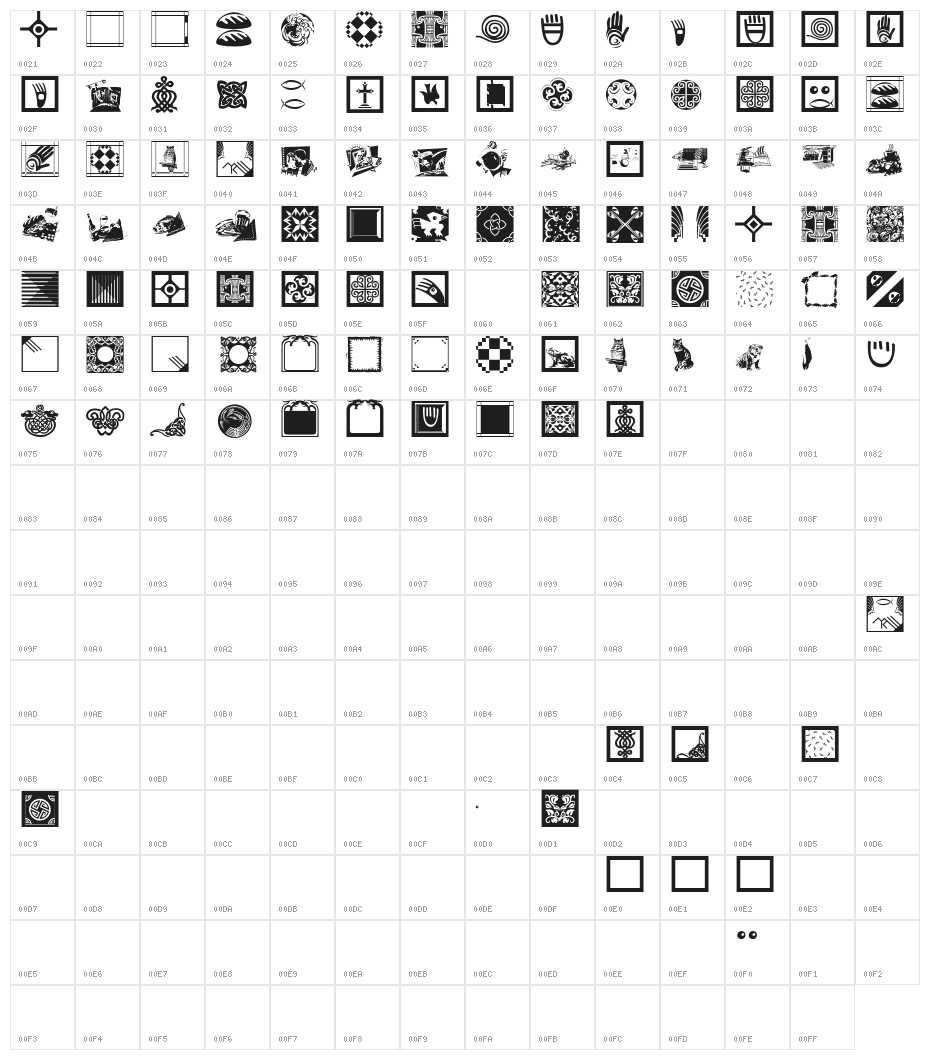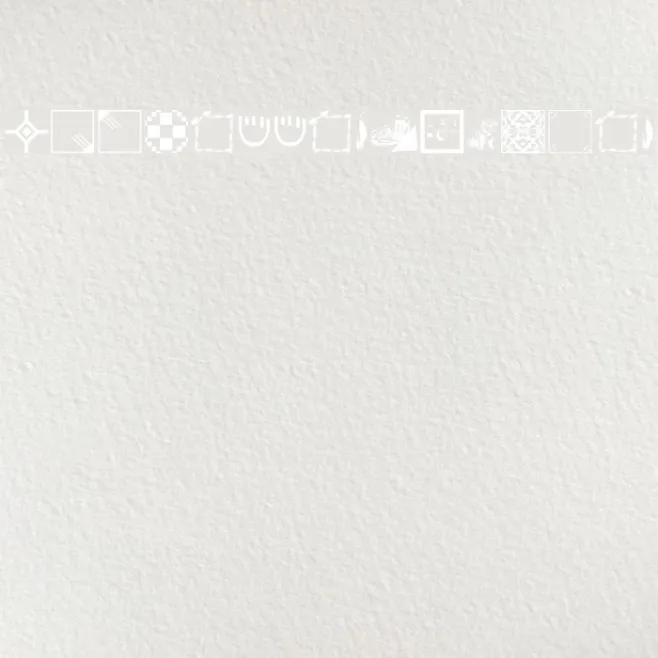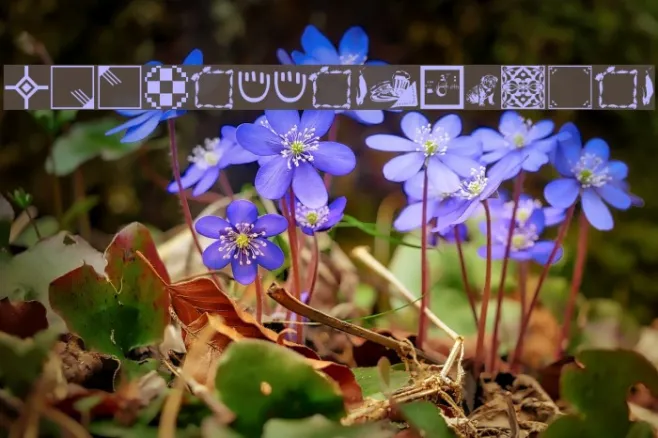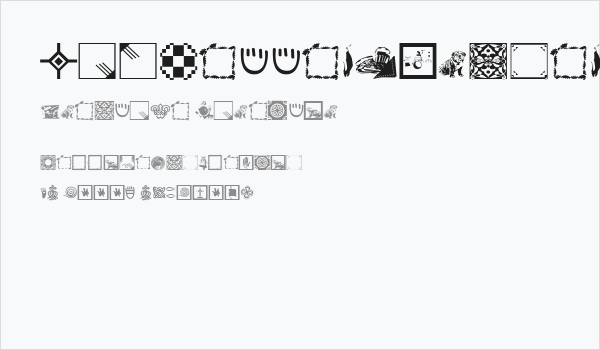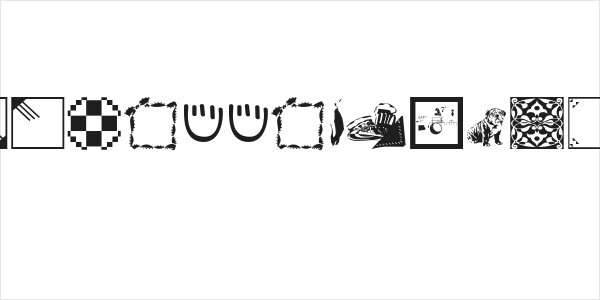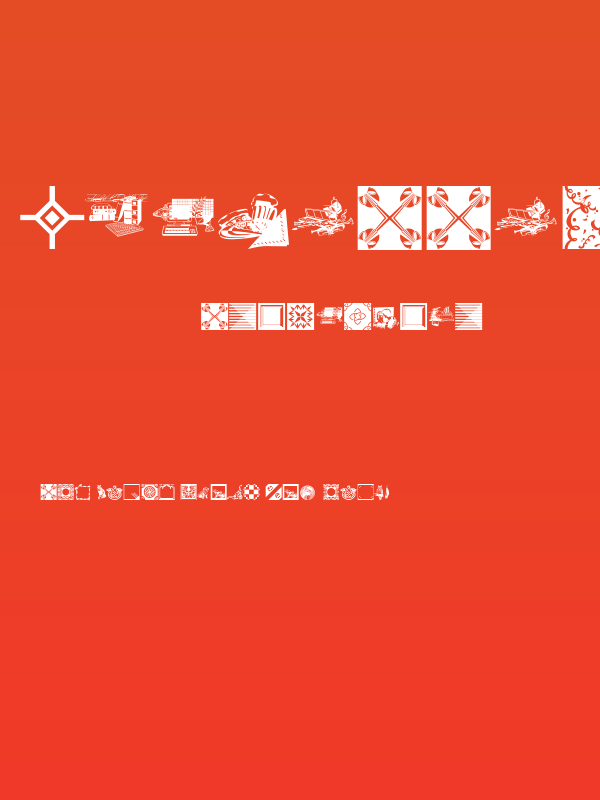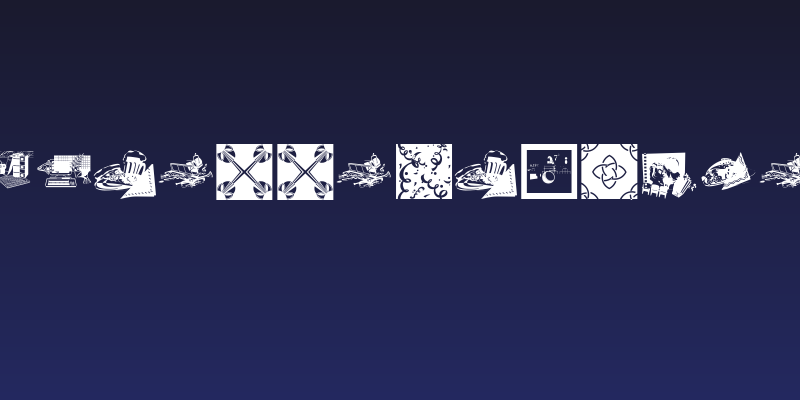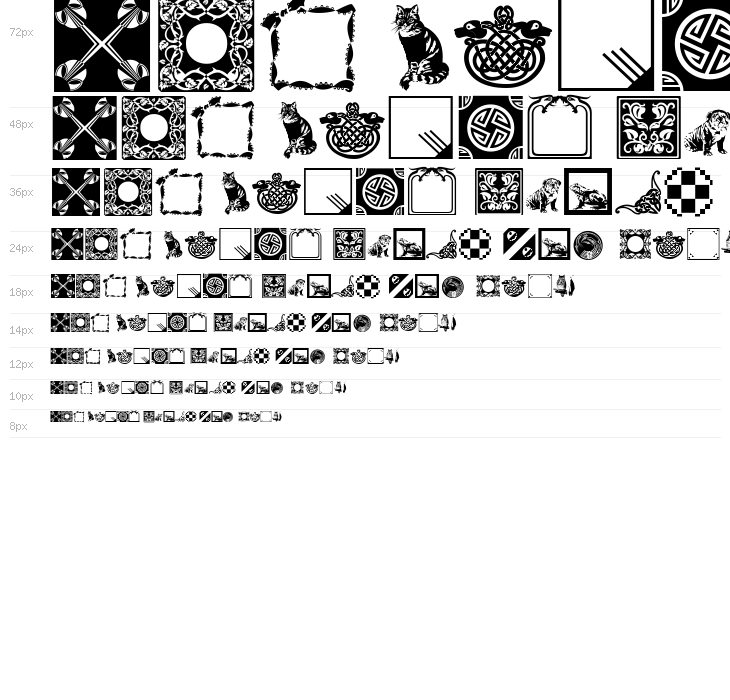
VignettesNFrames Font
VignettesNFrames Description
A decorative dingbat font featuring a wide variety of intricate vignettes, frames, borders, and ornamental motifs, including animals, geometric shapes, Celtic knots, and stylized icons. Each glyph is a unique illustration, often enclosed in a square or circular frame, with high contrast and detailed line work.
| Overall Style | Decorative, Vintage, Ornamental |
| Use Case | Borders, frames, embellishments, icons, decorative accents |
| Proposed Projects | Scrapbooking, invitations, certificates, decorative borders, book covers, vintage-themed designs, religious or cultural event materials. |